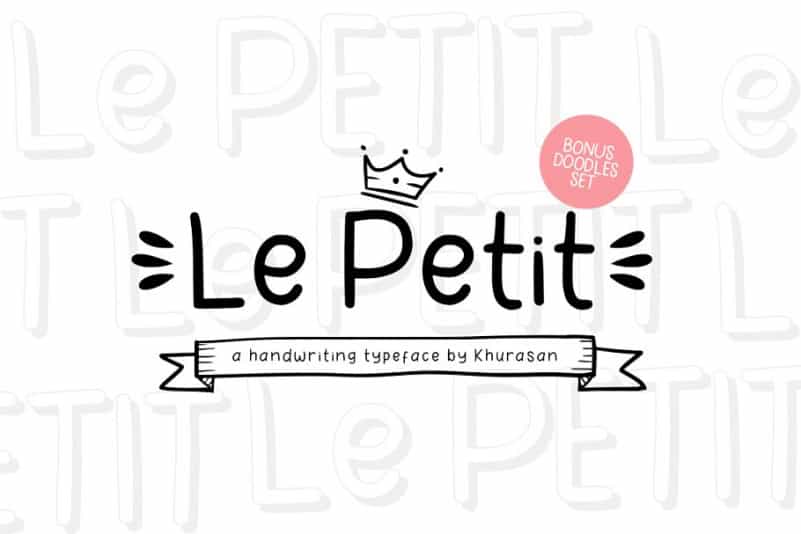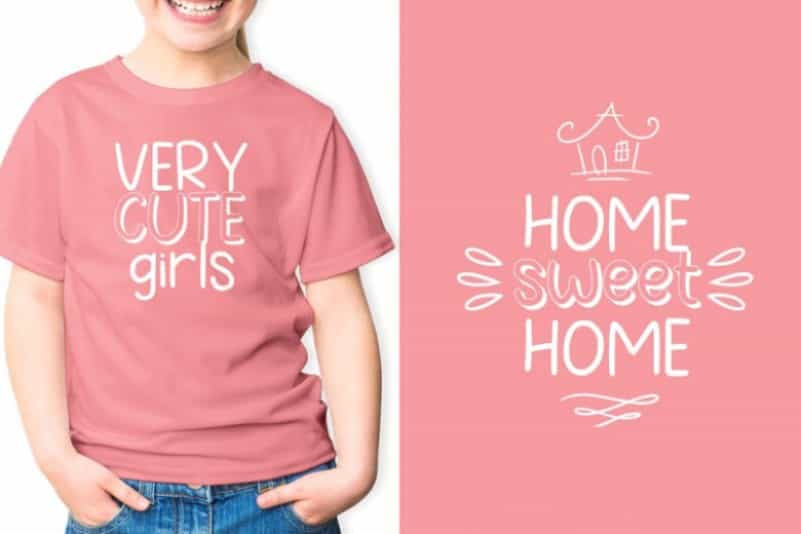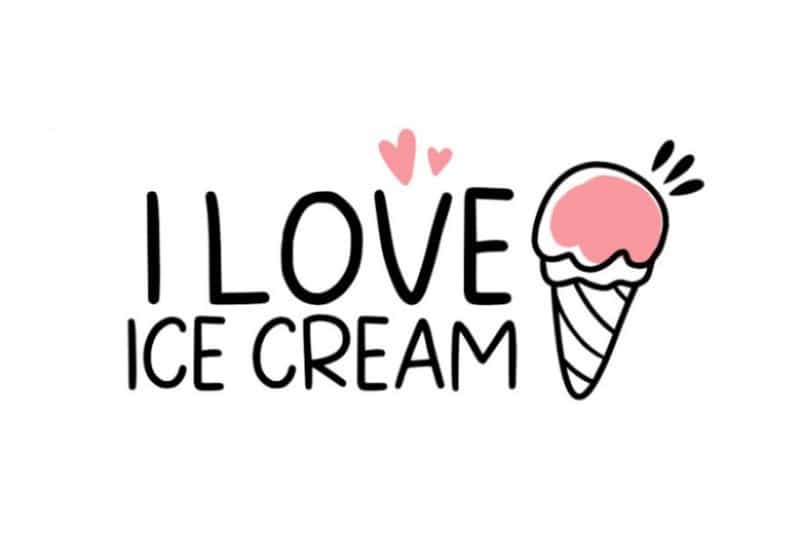
Le Petit font is a display font with a playful nature and a cheerful atmosphere ideal for logo and branding, greeting cards, posters, and other design projects you might need.